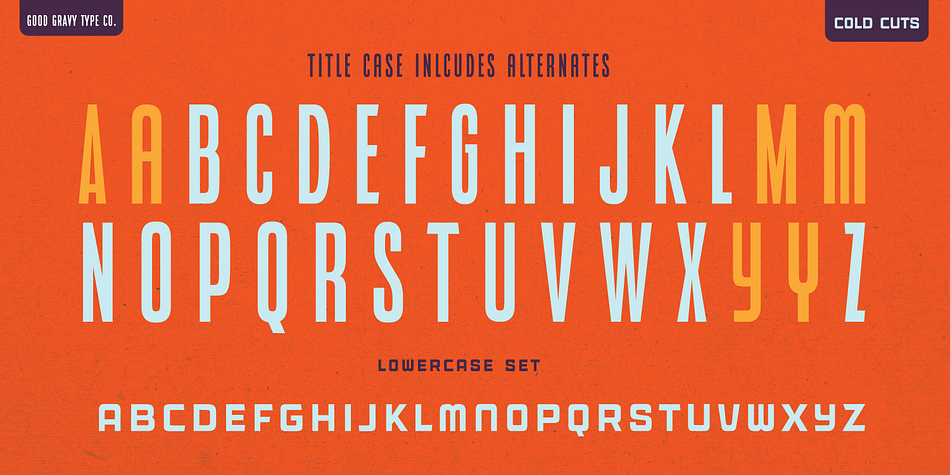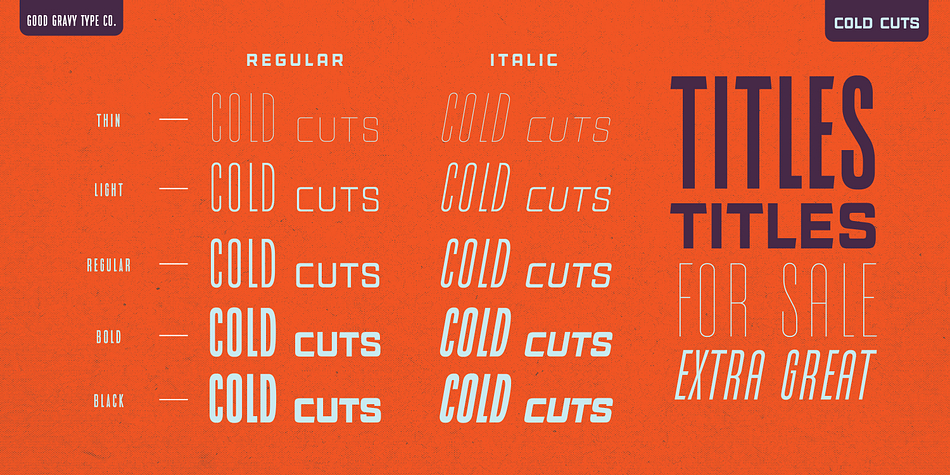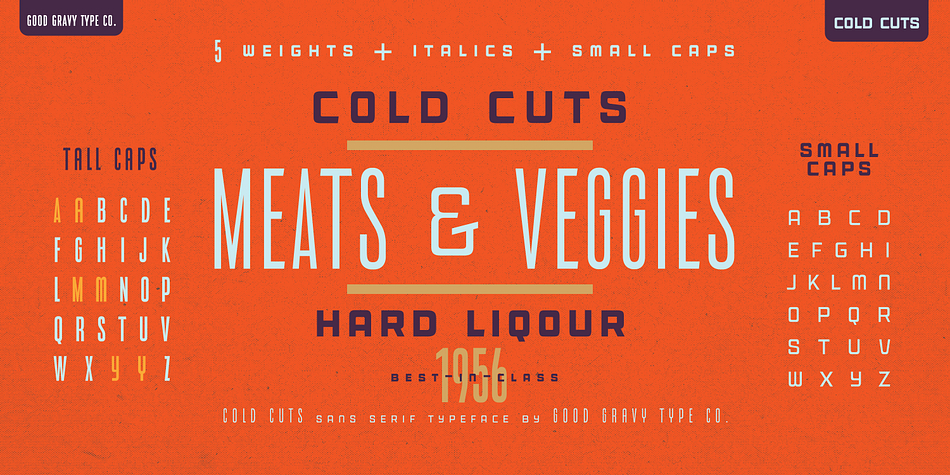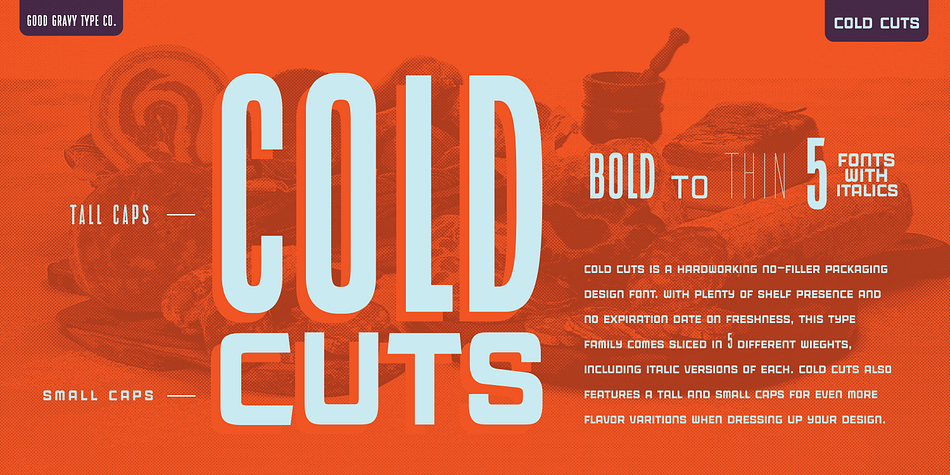
Cold Cuts is a display sans font family. This typeface has ten styles and was published by Good Gravy Type.
Cold Cuts is an assorted spread of delicious fonts pre cooked to perfection. This 10 weight font family is $20 for a limited time it is the perfect way to stock your font fridge. Cold Cuts a lean upright font family with a lowercase caps option to give you bonus typesetting choices. A sleek modern vintage style which has a wide variety of display uses. Bon Appétit!